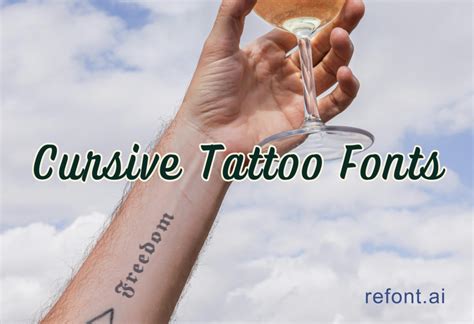
Tattoo Fonts Loose Cursive, 35 best nautical fonts old nautical tattoo and sea. Cursive is a type of handwritten fonts where a single line stroke creates the whole word… just like writing with a pen.
Big swirly bits, huge visual appeal, and lots of variety. Cursive fonts are the most popular writing style used in text tattoo design. This style is diverse because it influences the personal preferences, eras of time, and regions of the world.
Lovely home is a casual script font with a vintage feel and look. Cursive fonts are the most popular writing style used in text tattoo design. Loose cursive tattoo font generator januari 28, 2022 posting komentar skin deep typography and tattoos fontsmith blog. 5 wedding font, cursive font,cricut font, handwritten font,font swashes bundle,scrapbooking,calligraphy font,photoshop font,invitation font.
Premium cursive tattoo fonts 1. We have 179 free thin, cursive fonts to offer for direct downloading · 1001 fonts is your favorite site for free fonts since 2001 5 wedding font, cursive font,cricut font, handwritten font,font swashes bundle,scrapbooking,calligraphy font,photoshop font,invitation font. Looking for cursive tattoo fonts? Use elegant fonts to make a statement, in logos, headlines, or other short.
Feel free to mix typography posters with photos of nature and create a. Cursive tattoo fonts, which are custom designed by the many tattoo artists across the globe, require a lot of artistic talent and personal creativity. Cursive is a type of handwritten fonts where a single line stroke creates the whole word… just like writing with a pen. See.
You can download the images and share on your social media profiles. See more ideas about tattoo fonts cursive, cute tattoos, body art tattoos. These are cursive tattoo fonts that create an impact in typographic designs. The cursive fonts look aesthetic when they are scrawled in a straight line over one’s shoulder from one end to the other. Mini tattoos.
Cursive fonts simply emulate cursive handwriting, in which letters are usually connected in a slanted and flowing manner. These cursive font tattoos can also be transformed into a. These are cursive tattoo fonts that create an impact in typographic designs. Cursive fonts are beautiful and ideal for tattoos. Butterfly tattoo girls, dragon tattoo sexy body, flower tattoos, lower back tattoos.
You get a classy curvy tattoo if you choose cursive fonts for tattoos. For memorial tattoos, cursive fonts are preferable choices for example a name. Looking for cursive tattoo fonts? Pr viking font lettering celtic fonts tattoo lettering fonts. Sweet hipster is a modern calligraphic font created by suthi srisopha in 2018.